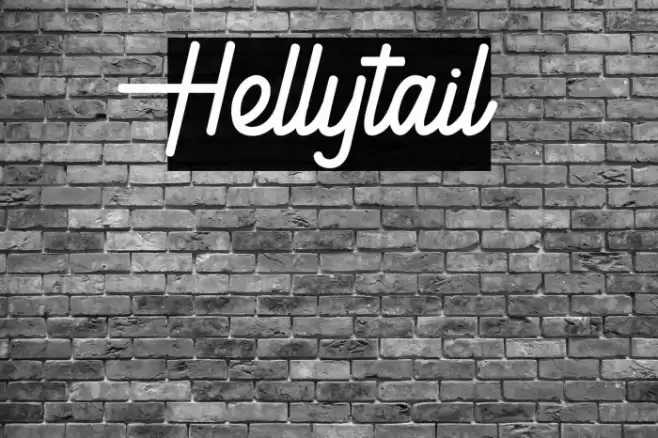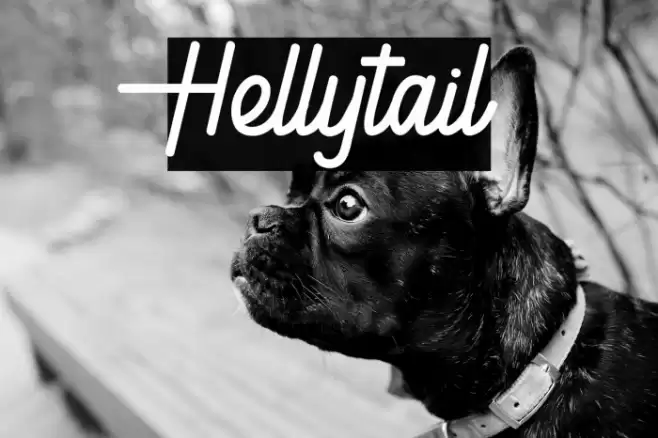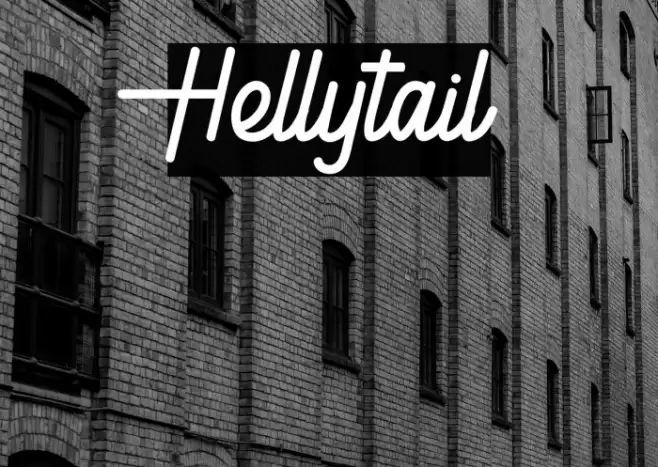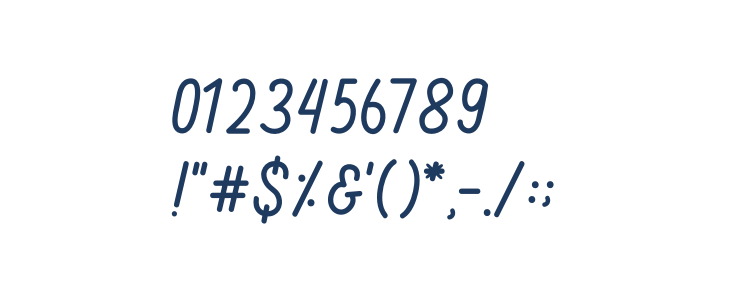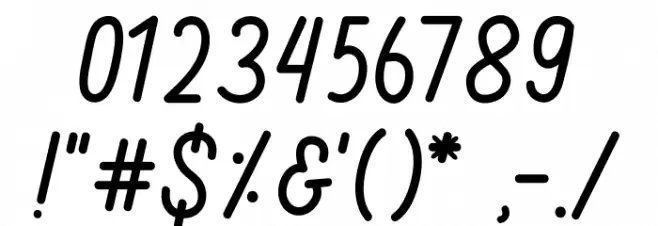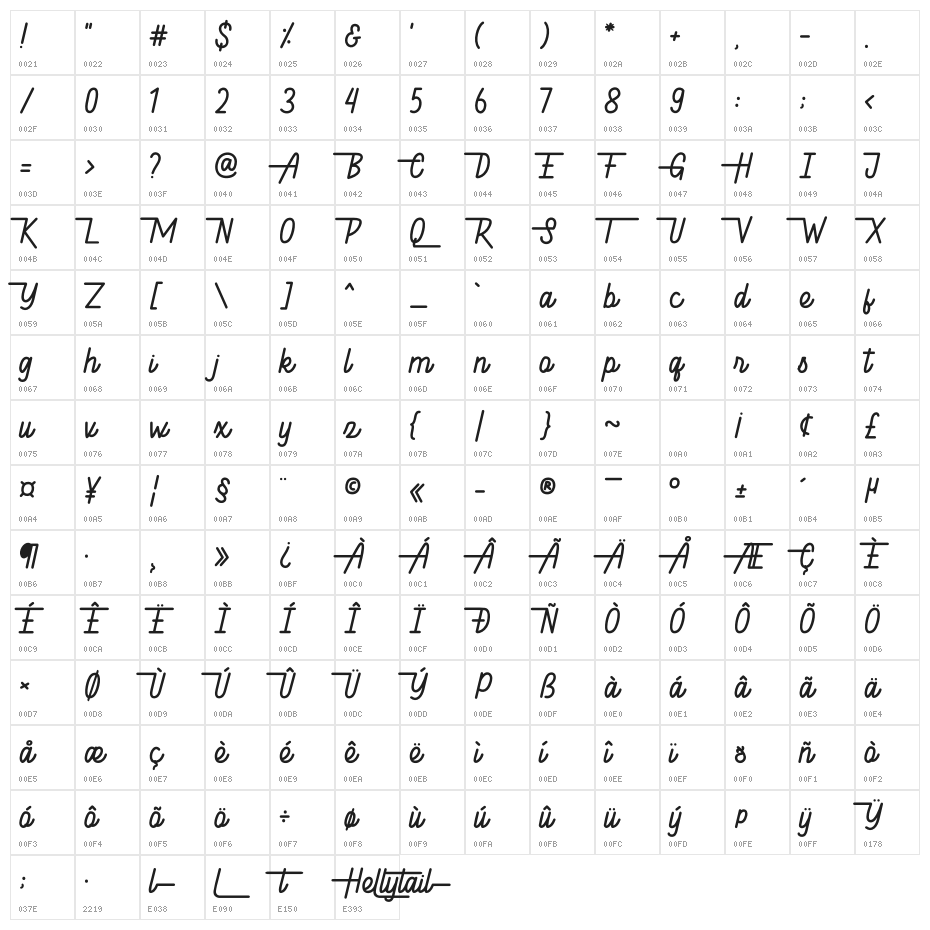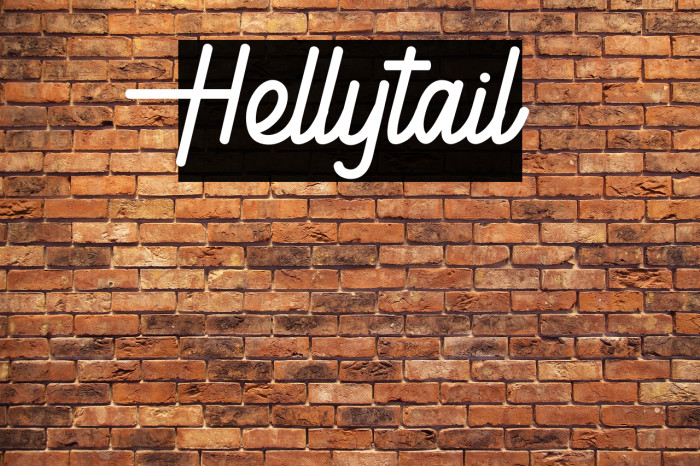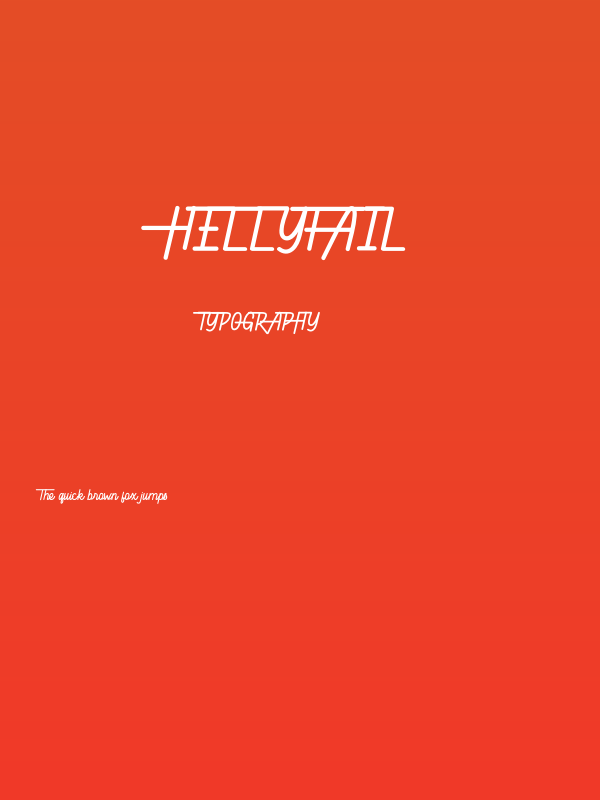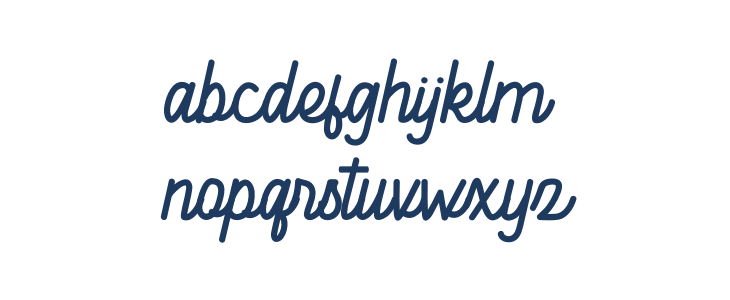
Hellytail Font
Hellytail Description
This font presents a dynamic and flowing script style, characterized by its cursive and connected letterforms. The uppercase letters exhibit a slight slant, enhancing the sense of motion and elegance. The lowercase letters maintain a consistent flow, with smooth curves and loops that create a harmonious appearance. The numerals are clear and legible, matching the overall script style. Special characters are thoughtfully designed to integrate seamlessly with the rest of the font, ensuring versatility in various applications. The font's design is both modern and classic, making it suitable for a wide range of creative projects.
A dynamic and flowing script font with connected letterforms and a modern classic appeal from Regular fonts.
- Overall Style: Modern Classic